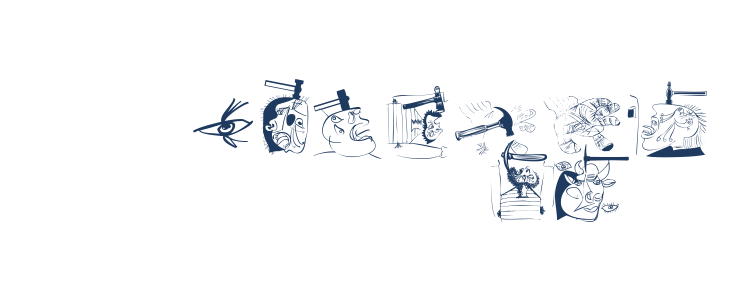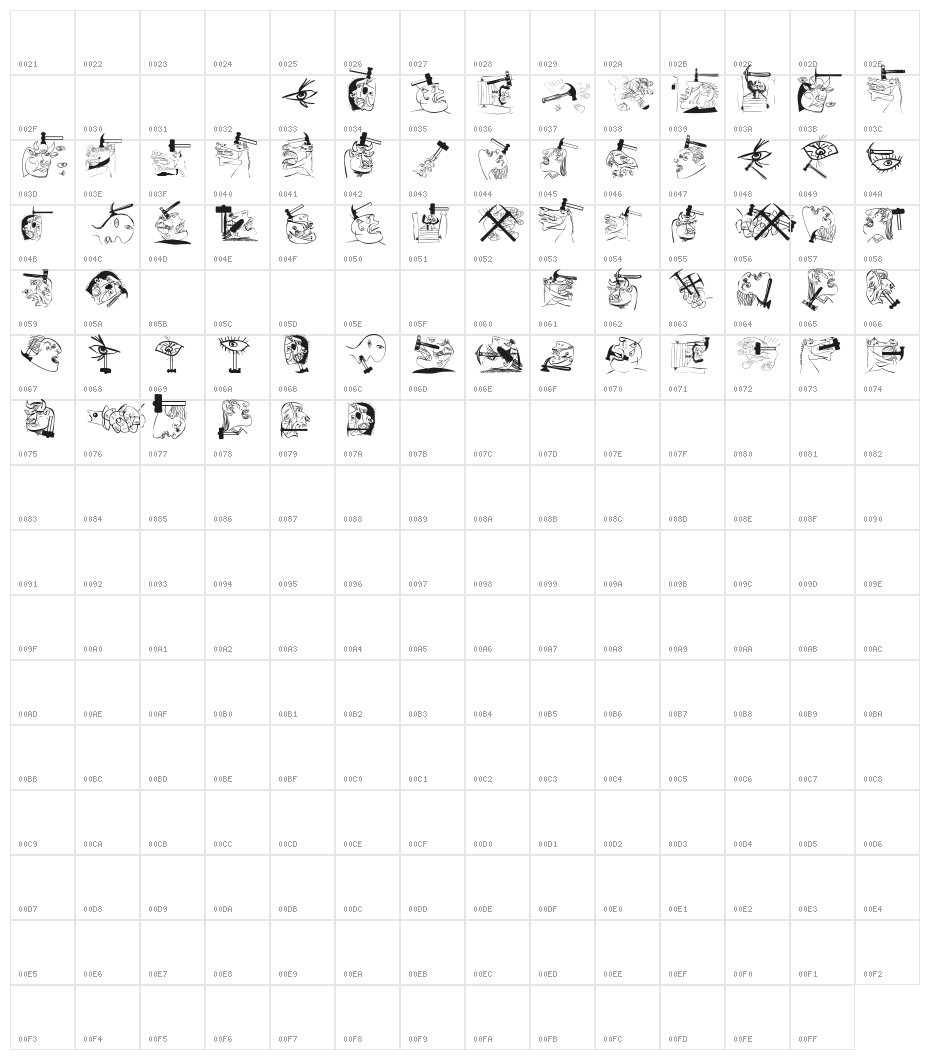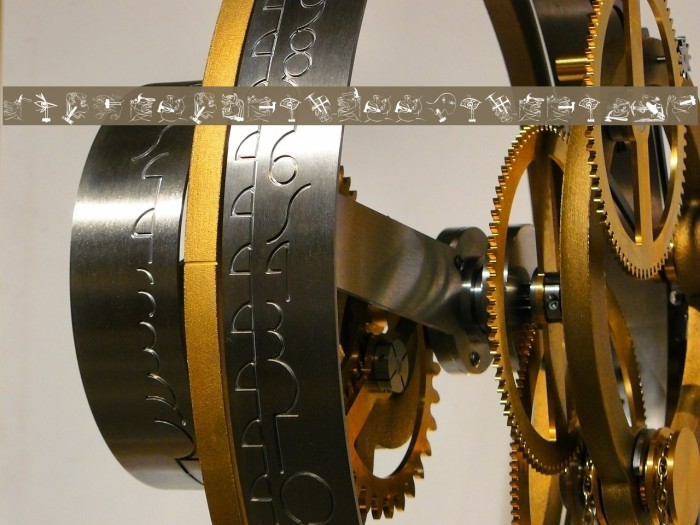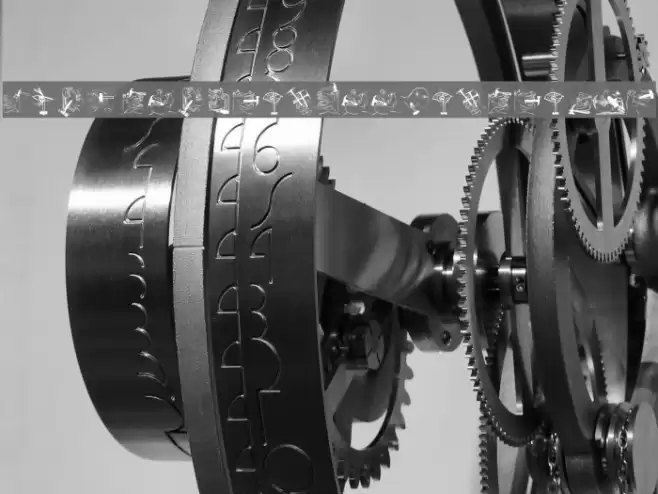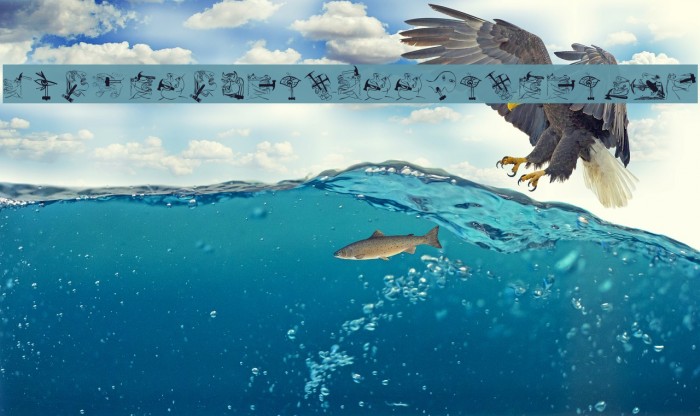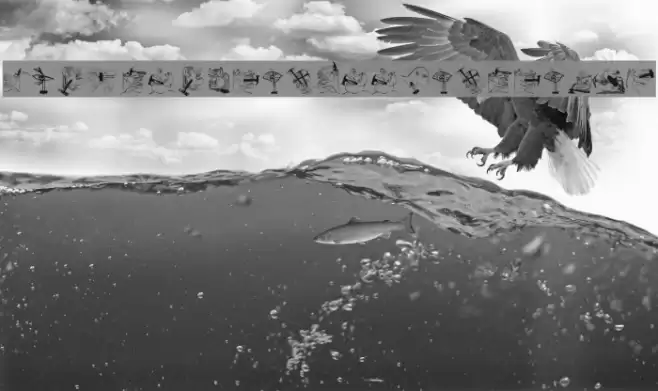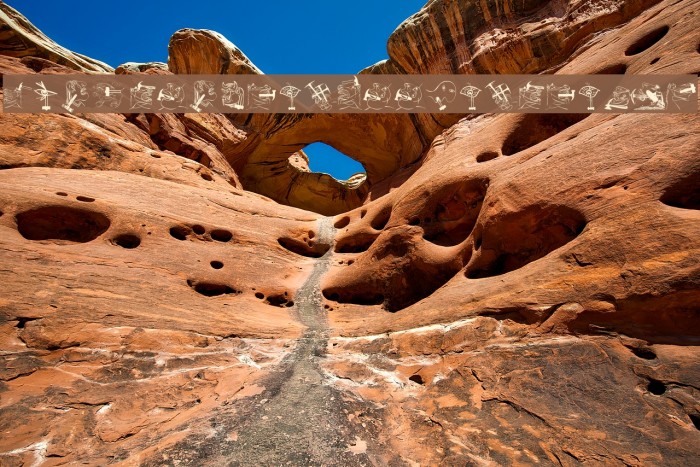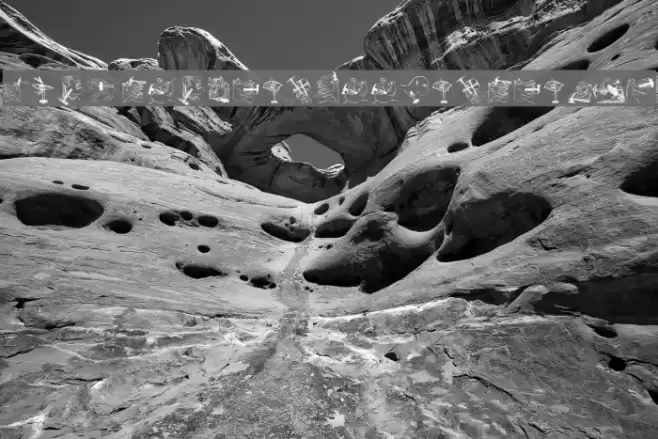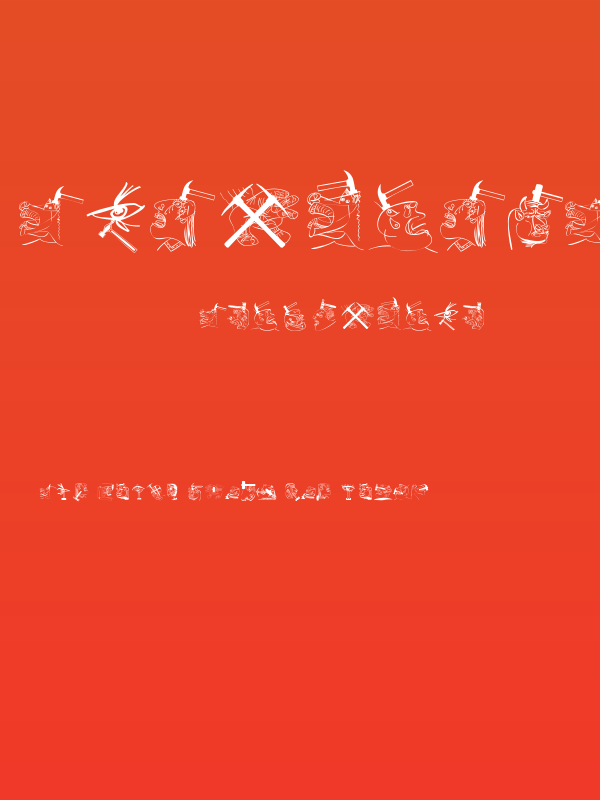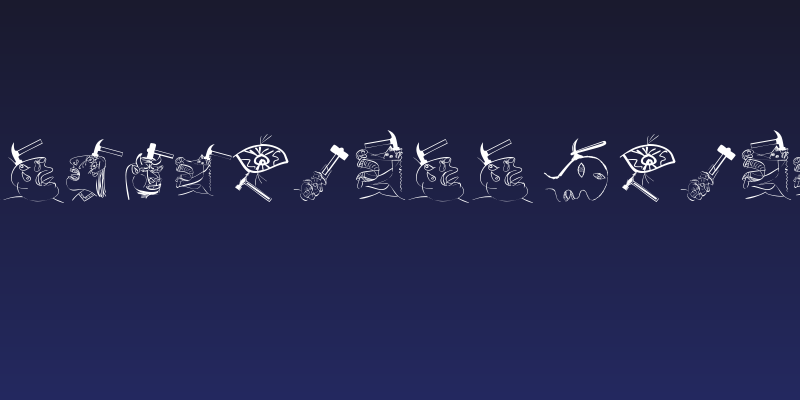
TherapeuticApplications Font
TherapeuticApplications Description
Highly decorative and abstract font composed of surreal, sketch-like illustrations for each character, featuring expressive faces, eyes, and objects such as hammers, evoking a hand-drawn, artistic style.
| Overall Style | Decorative, Artistic, Surreal |
| Use Case | Logos, Headlines, Posters, Artistic projects |
| Proposed Projects | Art posters, album covers, editorial illustrations, creative branding, event invitations. |